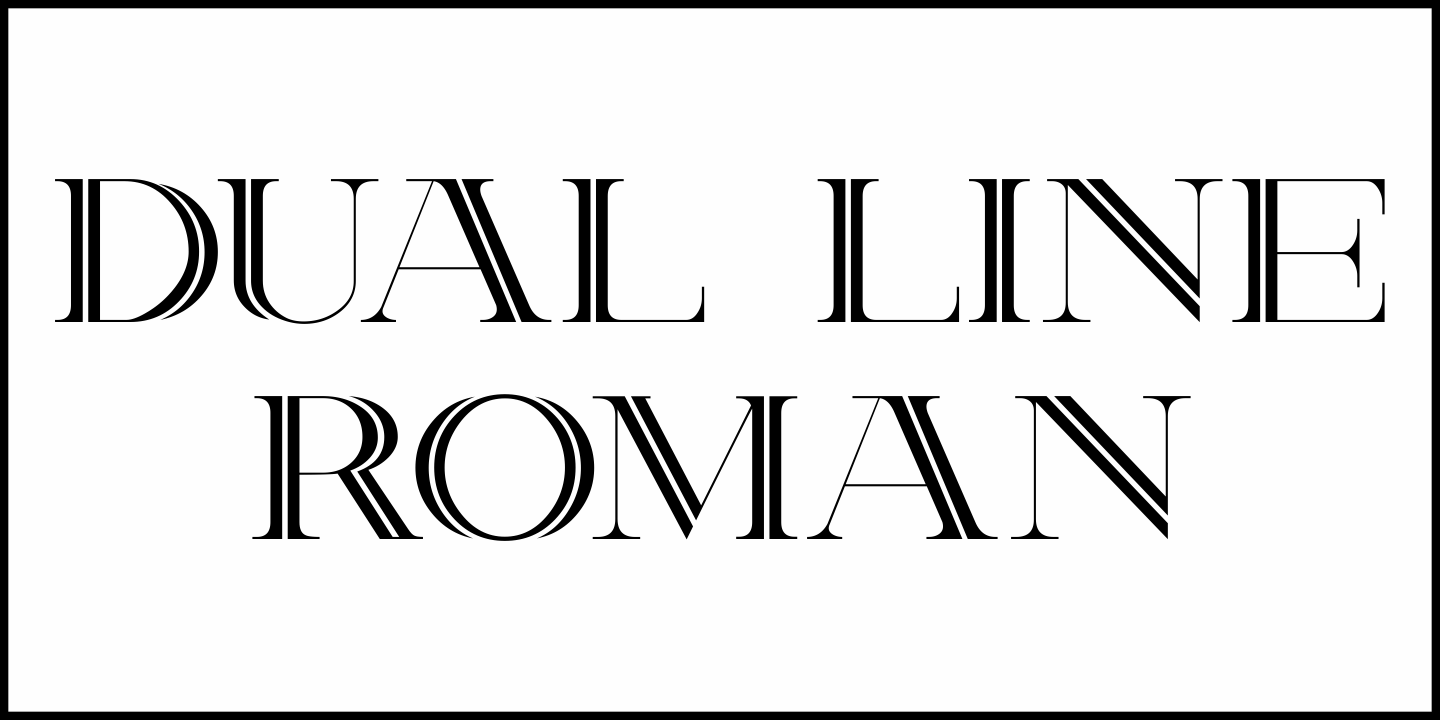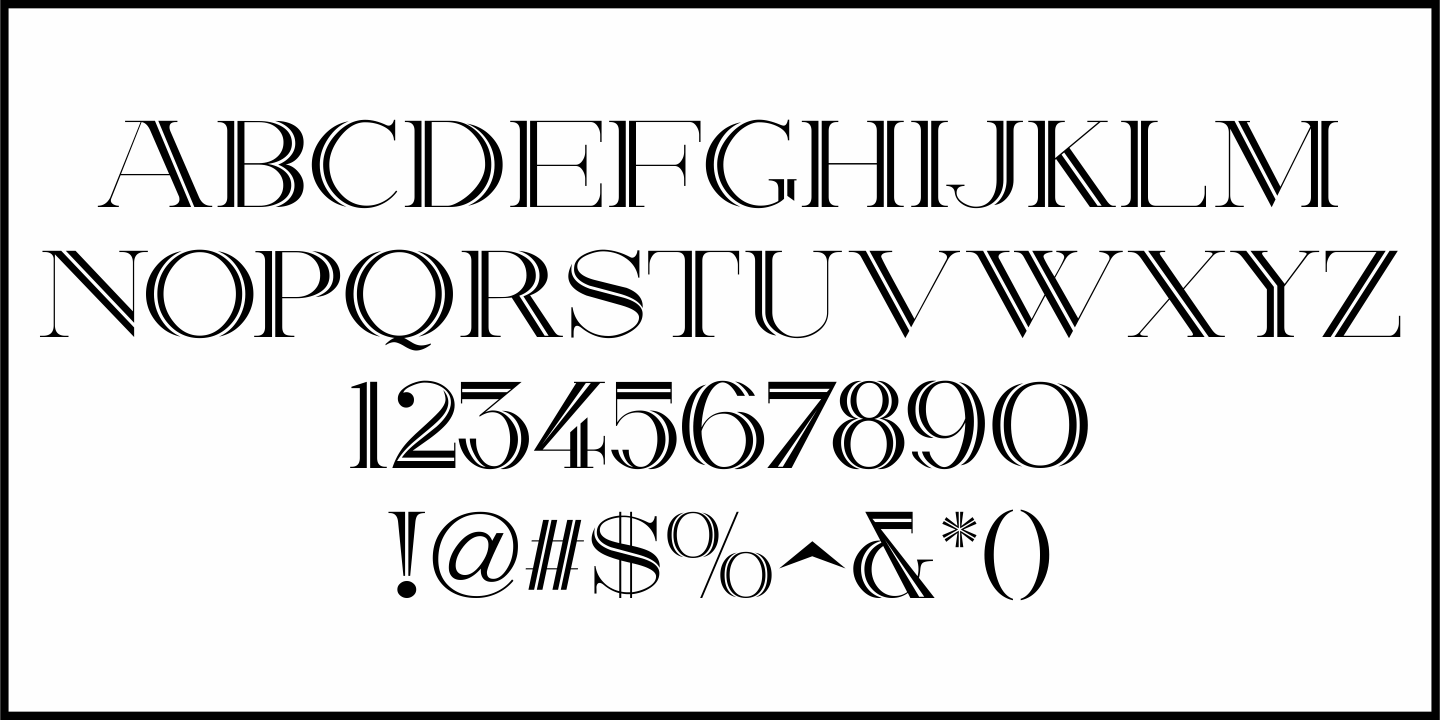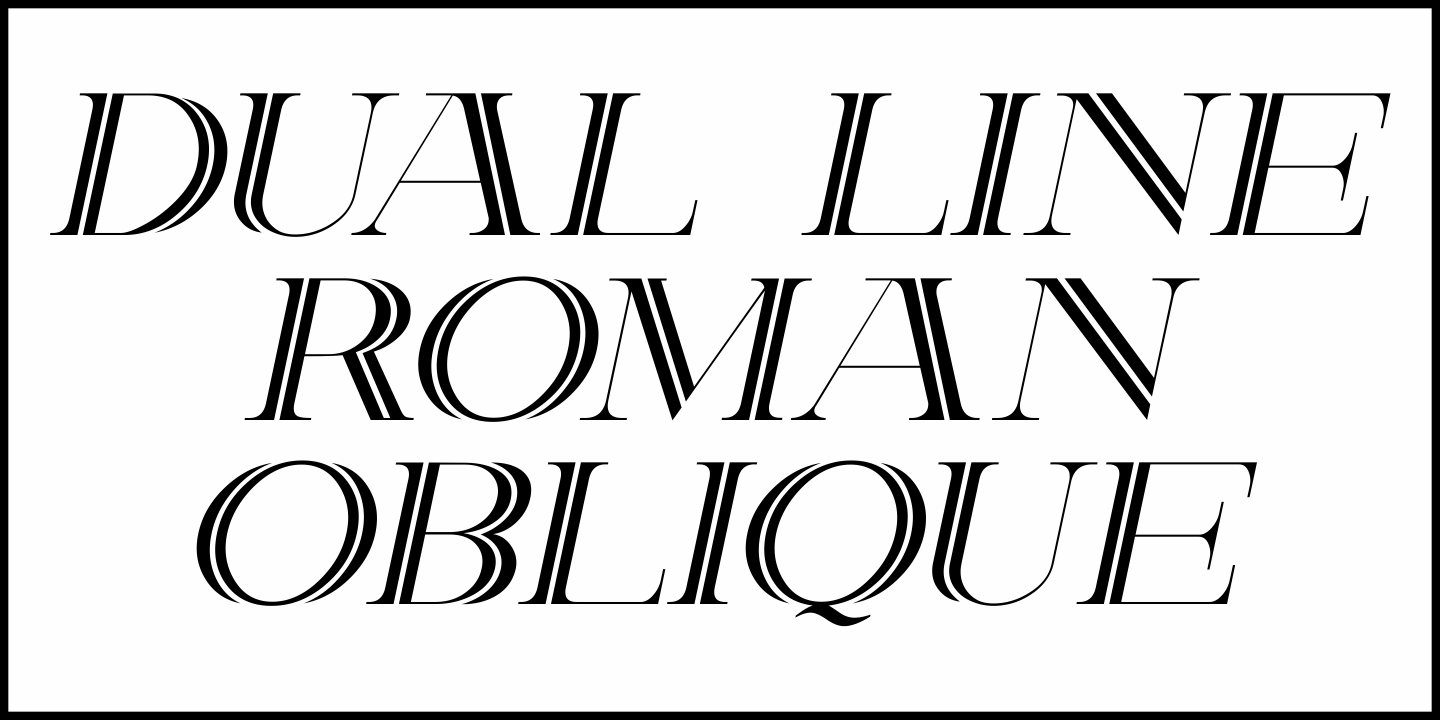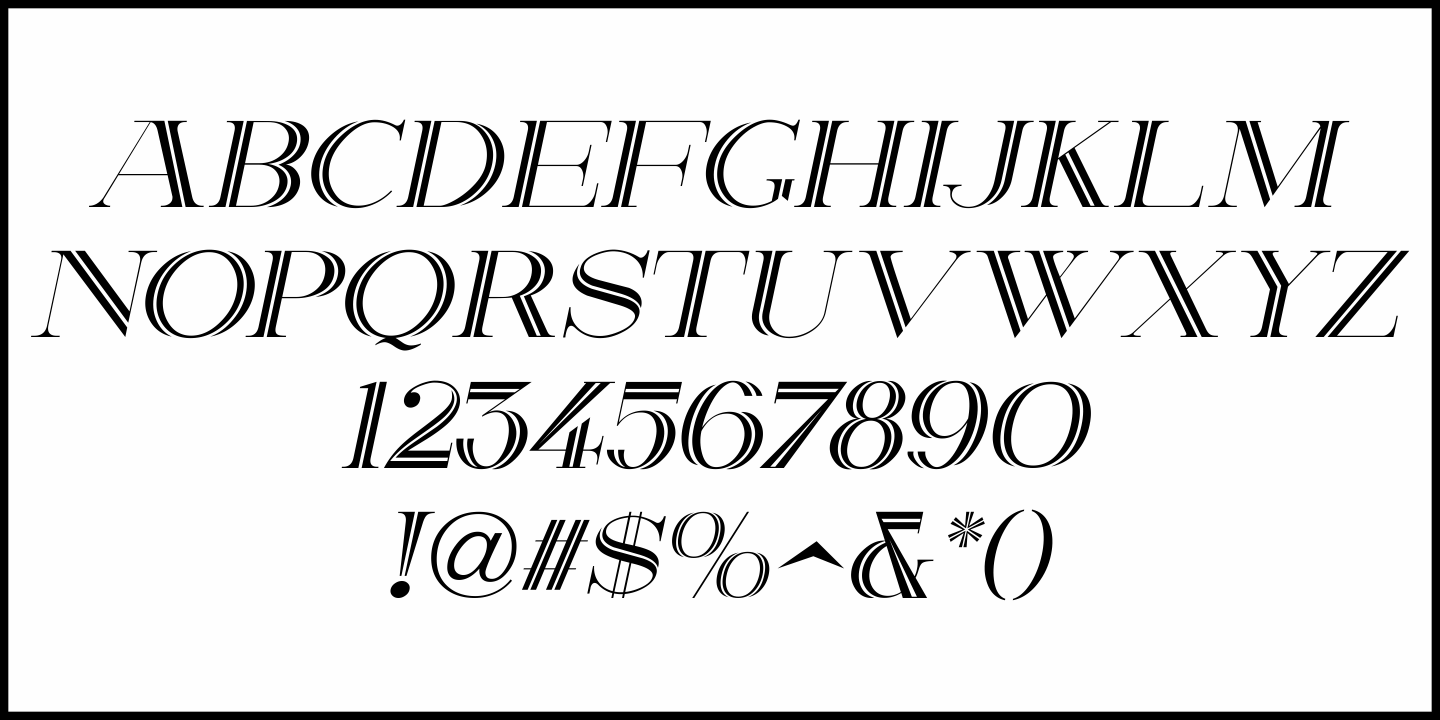
Dual Line Roman
Spotted amongst the online page scans from a vintage lettering book, the typeface originally called “Didot Moderne” served as the basis for Dual Line Roman JNL, which is available in both regular and oblique versions.